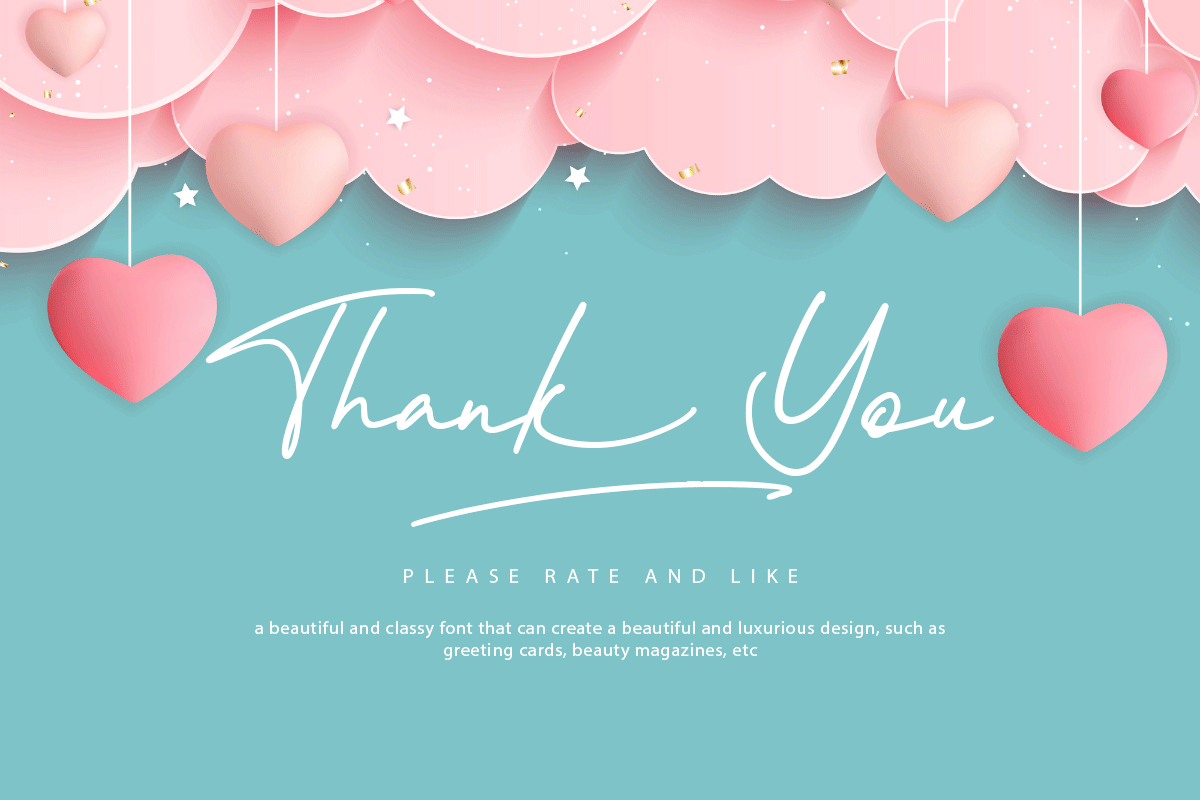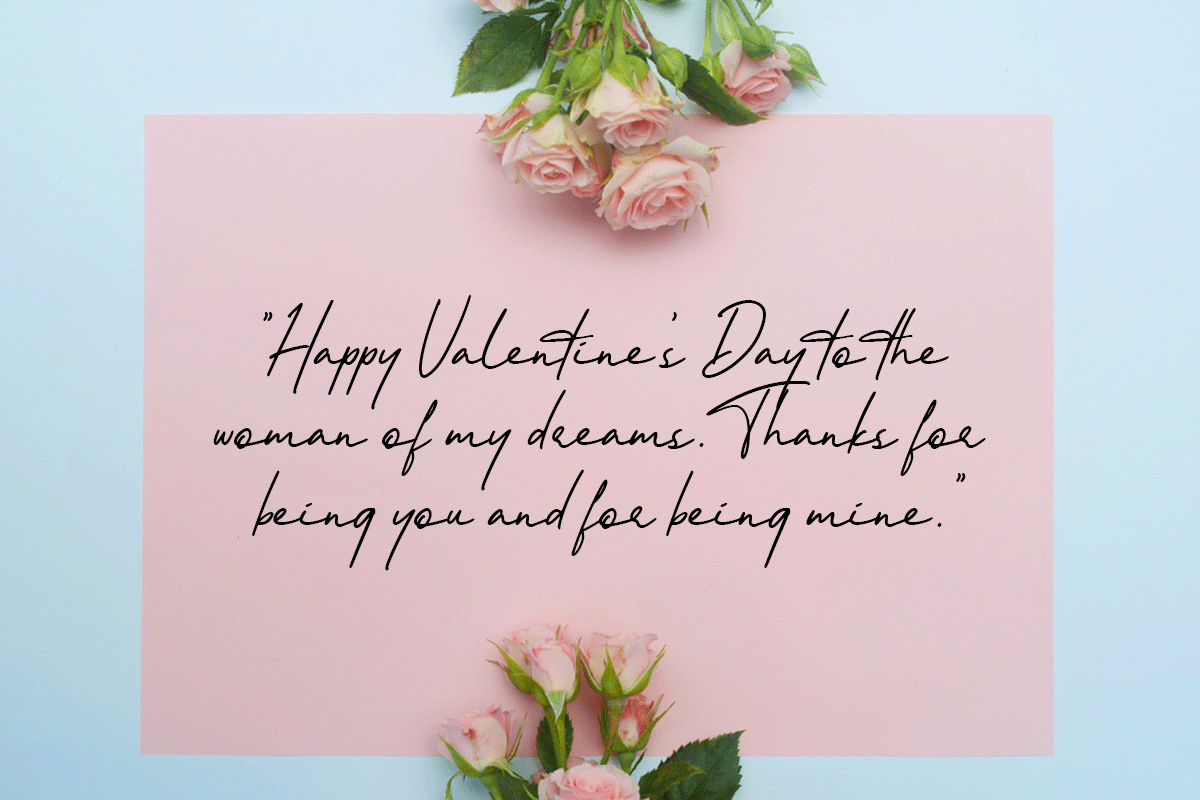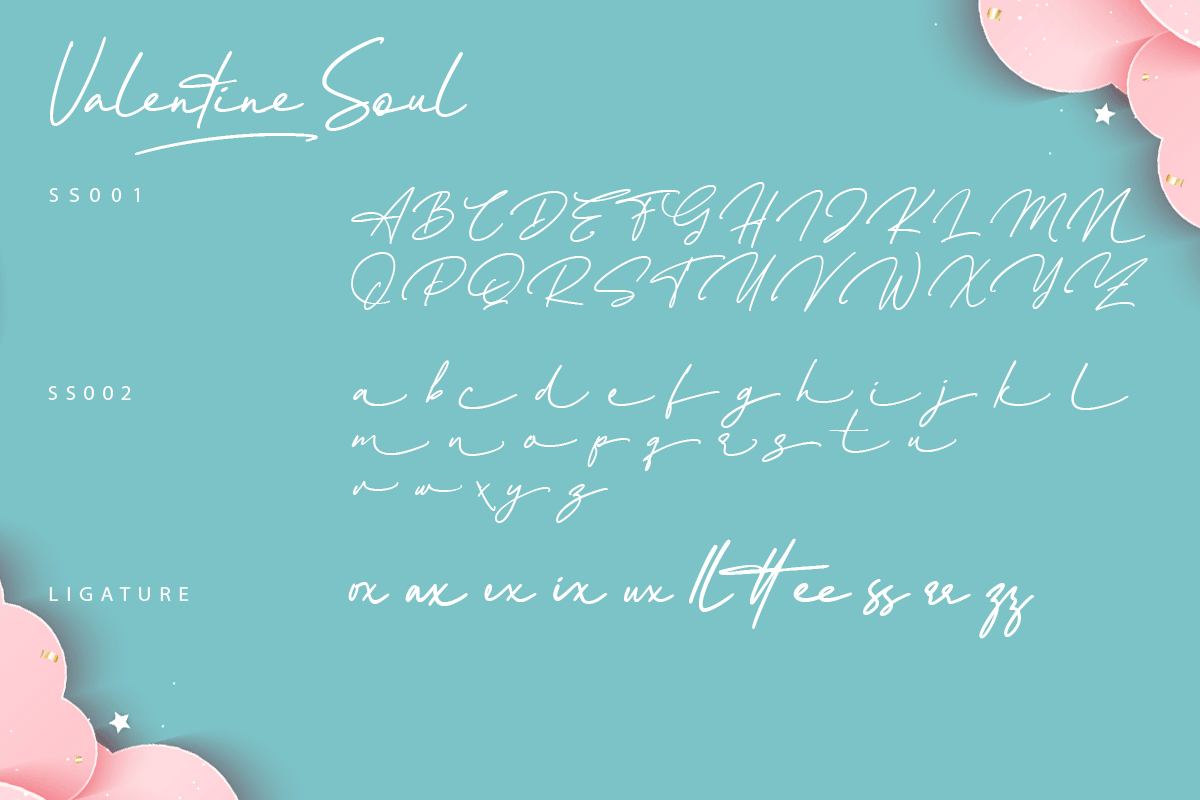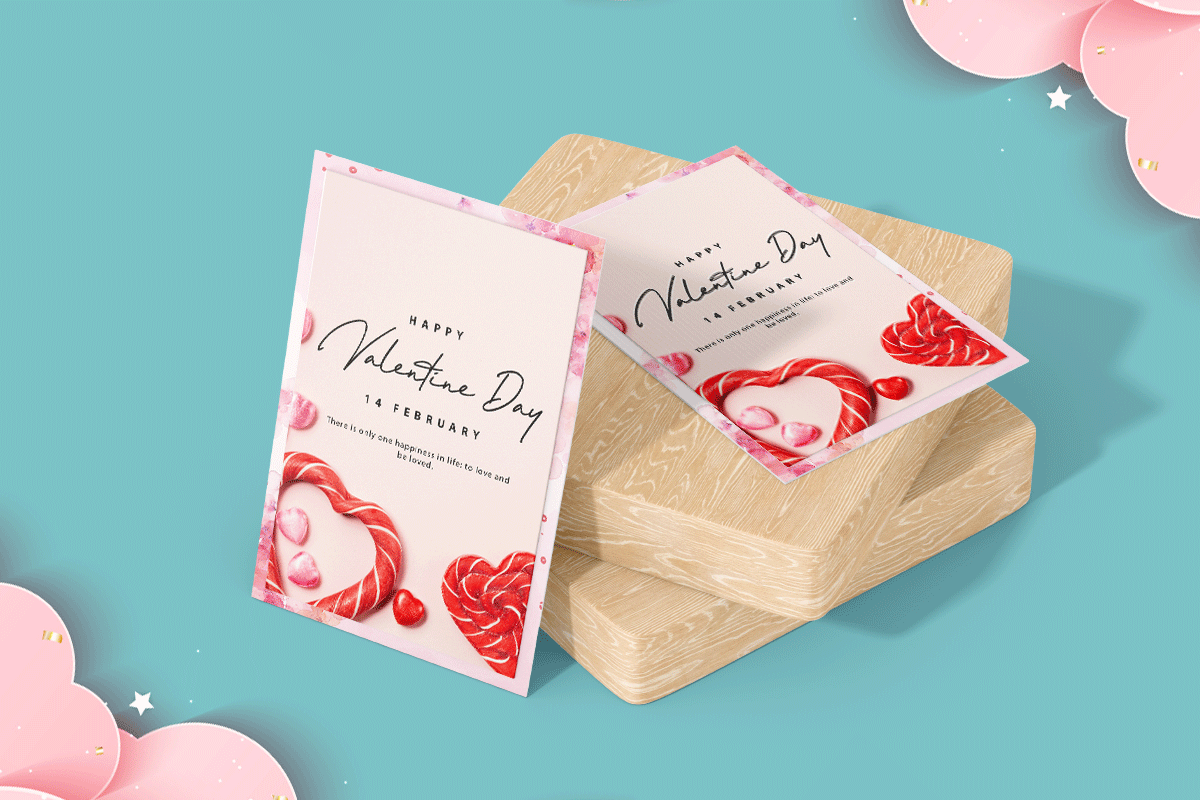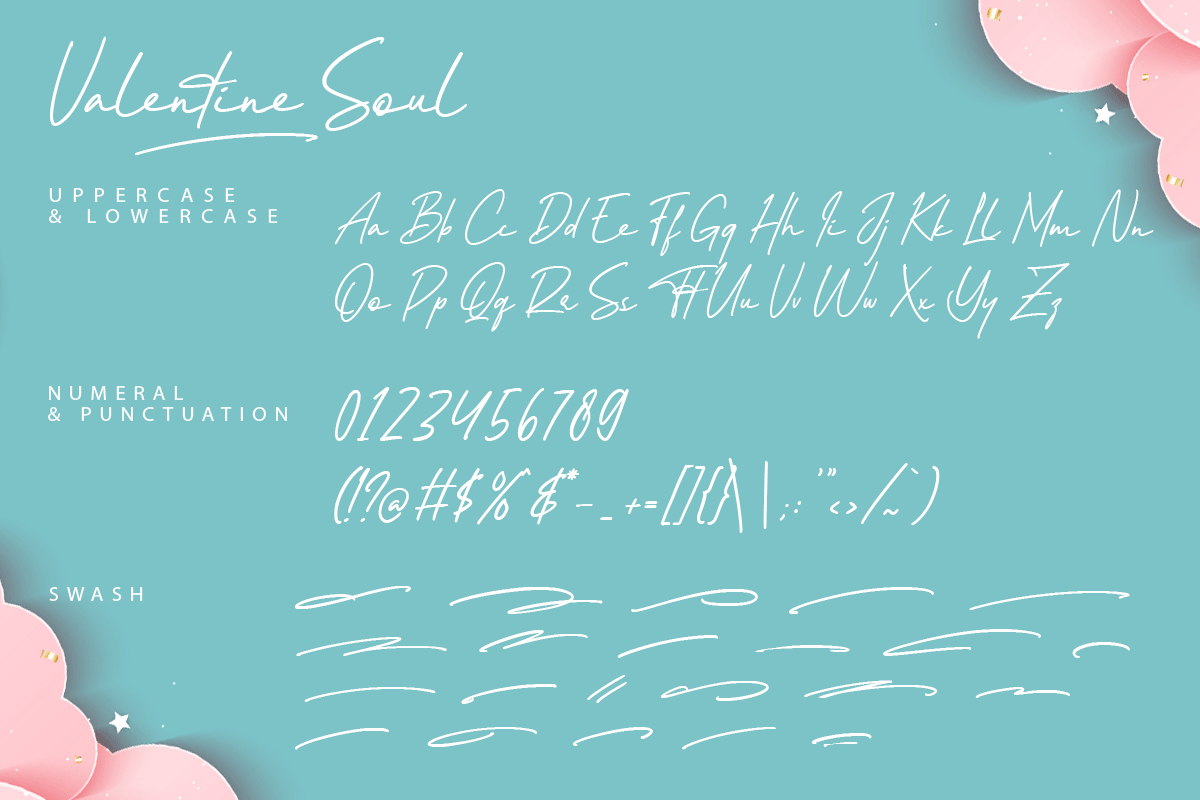
Valentine Soul Modern Valentine Font Classy Handwriting Font, Valentine Soul Modern Valentine Font is a blend of modern and handwritten fonts with an elegant and classic appearance. The pen is used to create this typeface, so the beauty radiates and is real. The pen in this font has a small tip, so the strokes are long, thin, curved, and continuous. This font type is the best Valentine font for use on Valentine's celebration supplies such as valentine invitations, greeting cards, and decorations. This font is also the best romantic font that can use on souvenirs and merchandise. Valentine Soul Modern Valentine Font will give everyone who sees it a simple yet elegant appeal. From the explanation of these characteristics and uses, the Valentine Soul Modern Valentine Font is a classy font. For other formal events, such as art exhibitions, you can use our Valentine Soul Modern Valentine Font on exhibition titles, team shirts, signage, and other items. This font can be applied as a digital font or a print font. Combined with the matching theme, supporting images, and atmosphere, the beauty of the Valentine Soul Modern Valentine Font will shine like sunlight illuminating a room. Our Script & Signature font collection is used as Figma Fonts, Canva Fonts, Freepik Fonts, and Adobe Fonts. They also work as Windows Fonts and Apple Fonts. For your social media needs, you can use and install fonts in our Script & Signature font collection to use as Instagram Fonts, Facebook Fonts, and Twitter Fonts.